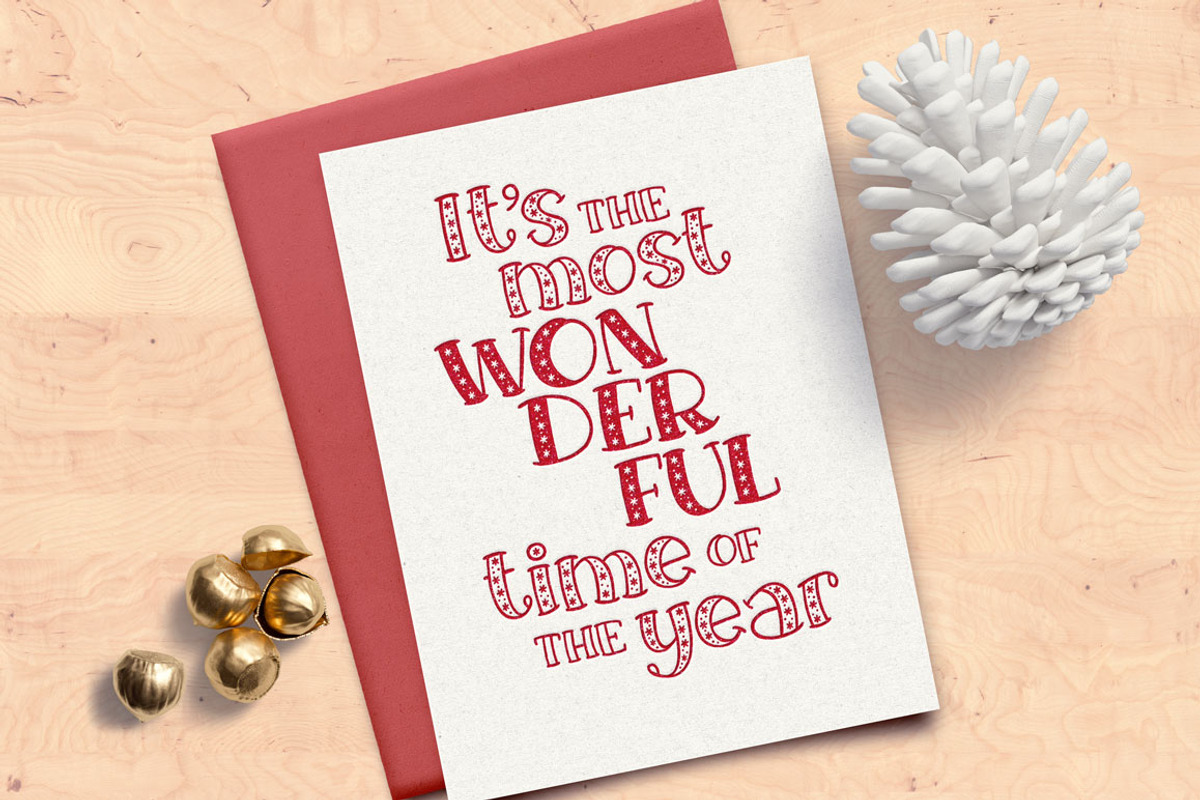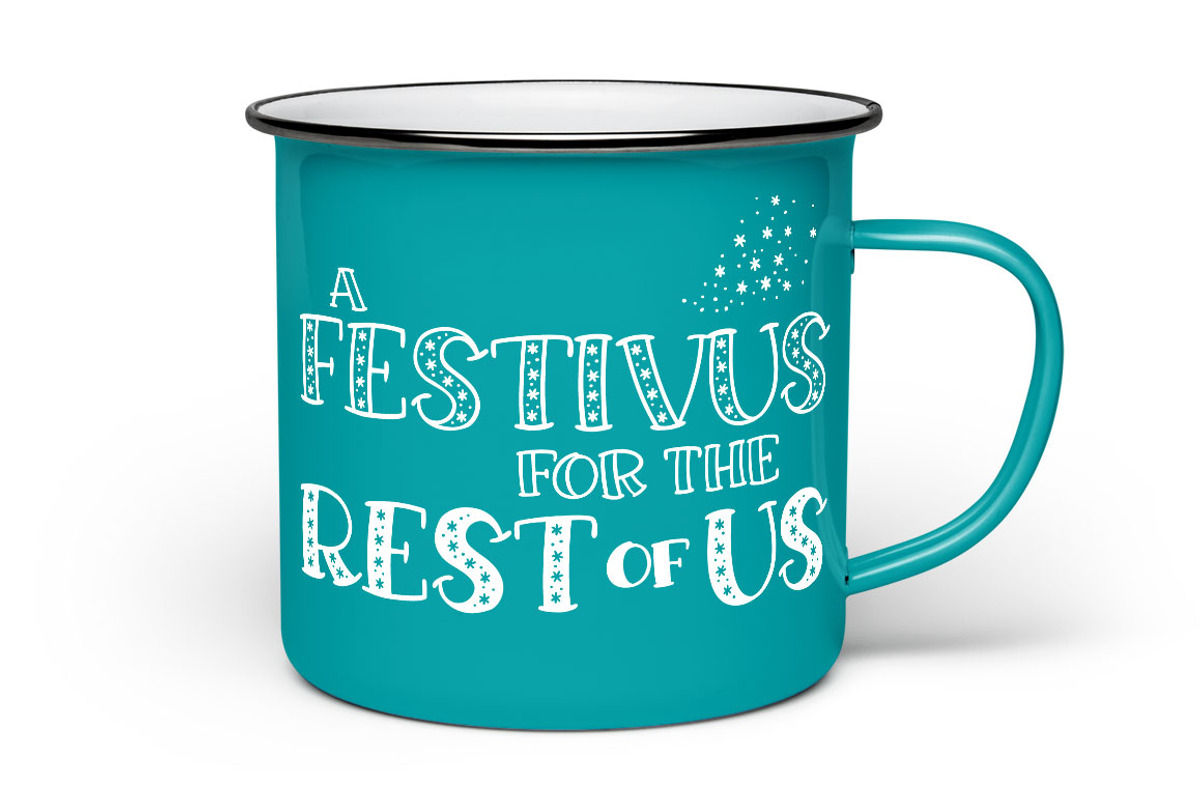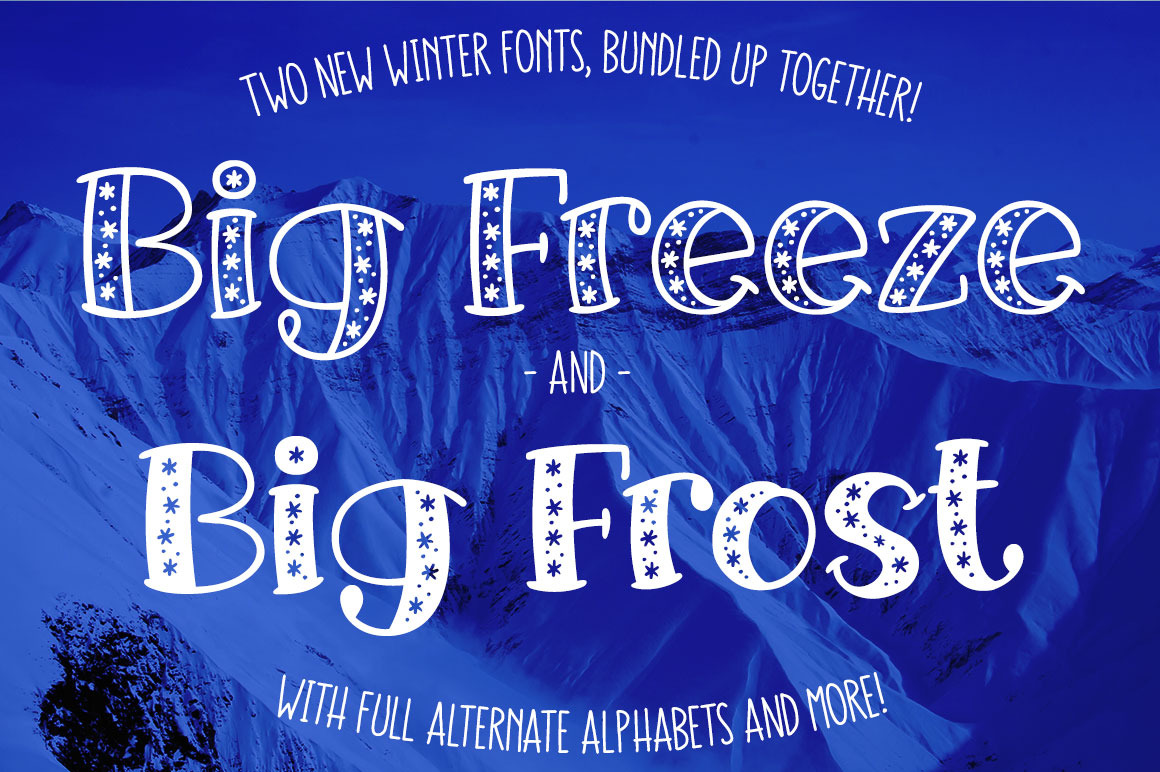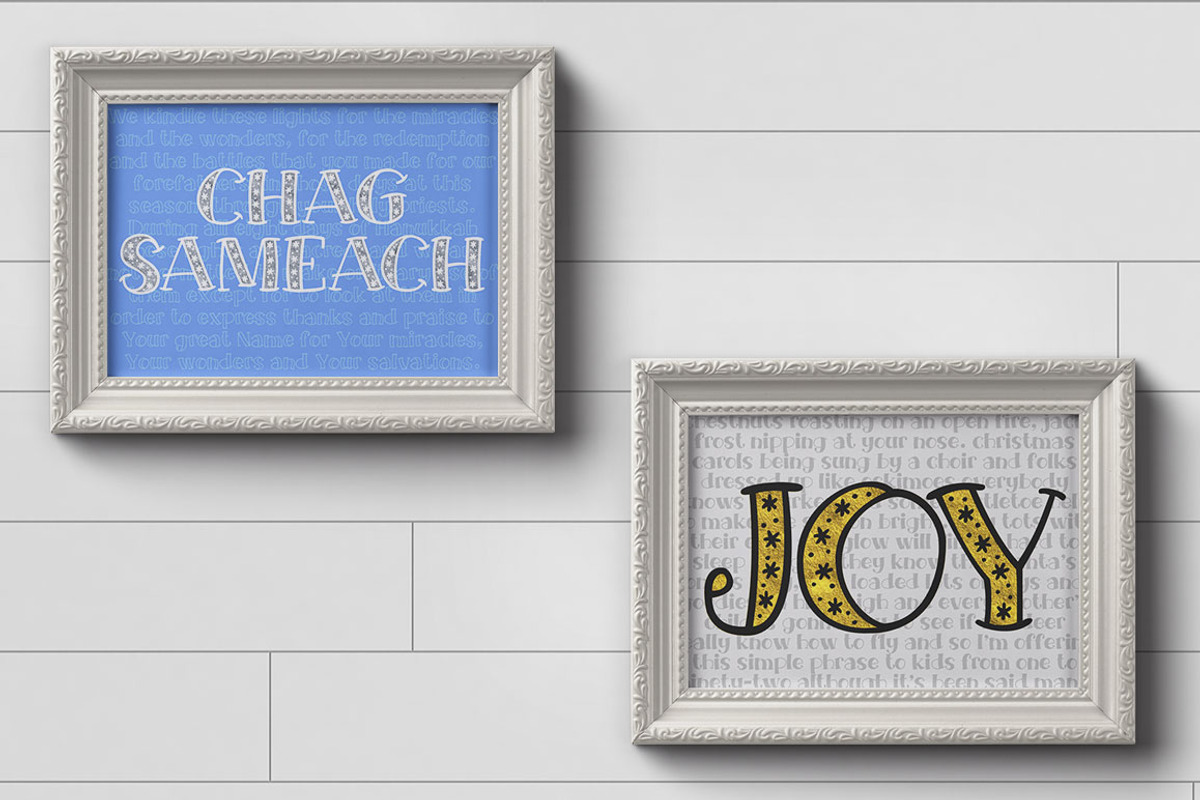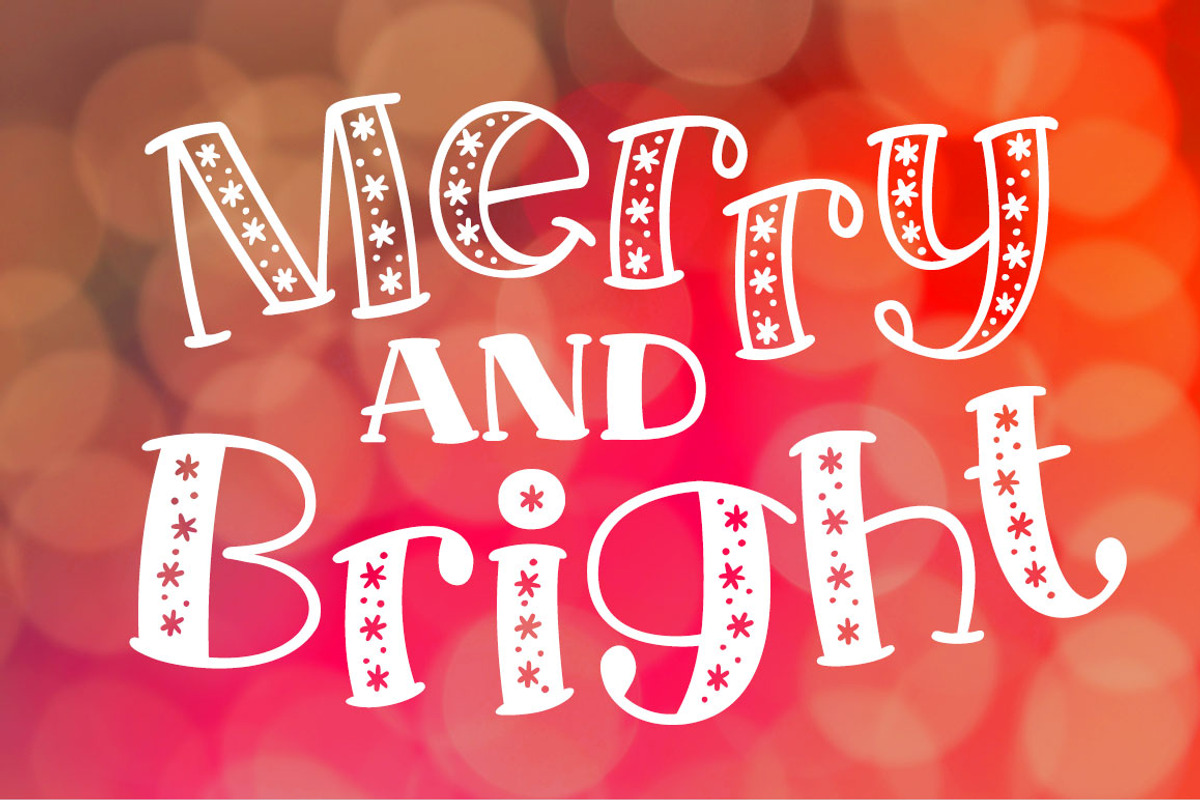
Big Freeze & Big Frost: winter fonts
Just in time for the winter holiday of your choice, here are Big Freeze and Big Frost!
These typefaces are two sides of the same coin: one hollowed out and filled with a flurry of snowflakes, the other solid and filled with the same snowflakes. And even better, each one comes with a full alternate alphabet without the snowflakes as well!
(And even though a lot of the promo images are Christmas-based, I made sure to keep the look of these letters not-holiday-specific, so they can be used for any wintry purposes!)
Both fonts also include a variety of smaller catchwords, including: the, and, or, for, from, with, of, by, and many others.
As with all of my fonts, these two include tons of punctuation, and over 200 accented characters each for multiple language support: English, French, Spanish, German, Polish, Romanian, Portuguese, Swedish, Finnish, Norwegian, Danish, Esperanto, Czech, Dutch, Welsh, Filipino, Turkish, and more.
- Over 400 glyphs in each typeface
- Over 200 accented characters in each for multiple language support
- Full second plain alphabets in both styles, without the snow (both encoded into the fonts as alternates, and separated out into the Plain files)
- 16 small catchwords in each (also separated out into their own file)
- A couple of extra snow flurry dingbats, just for fun